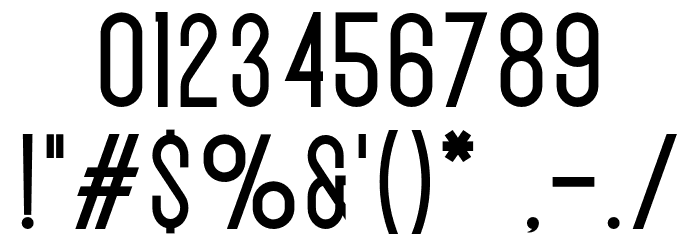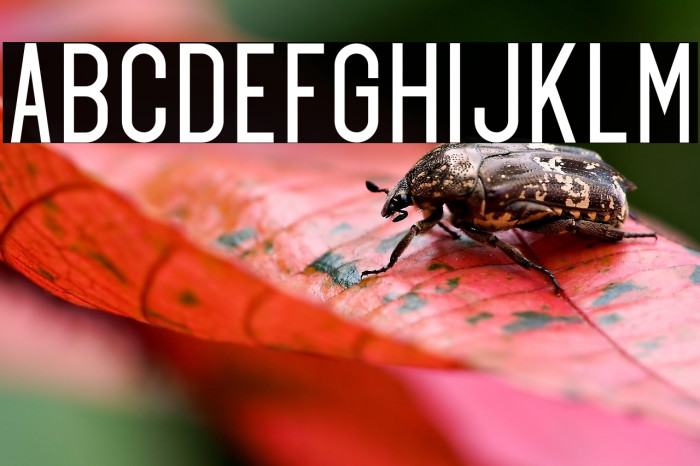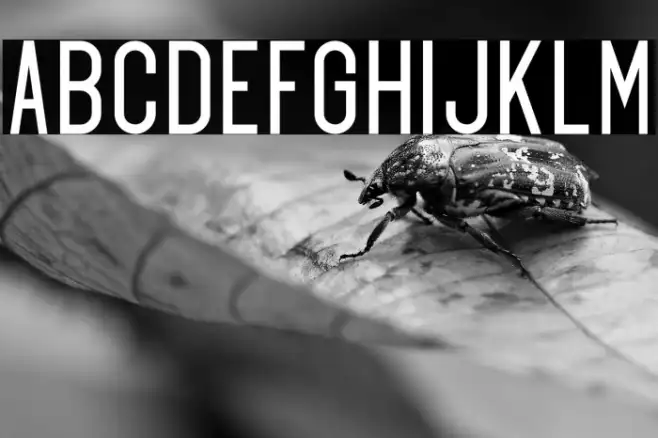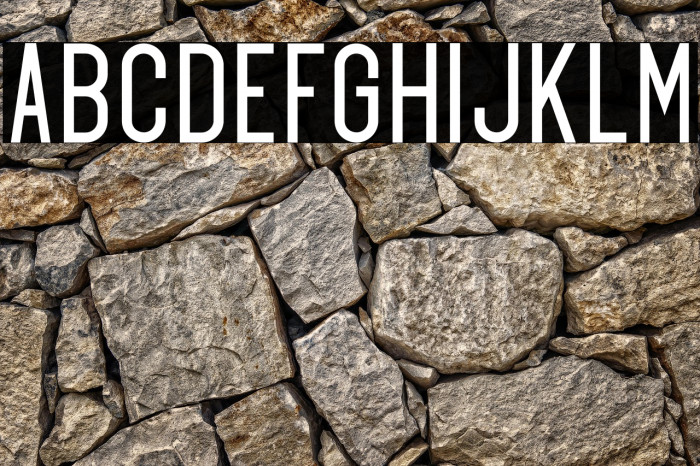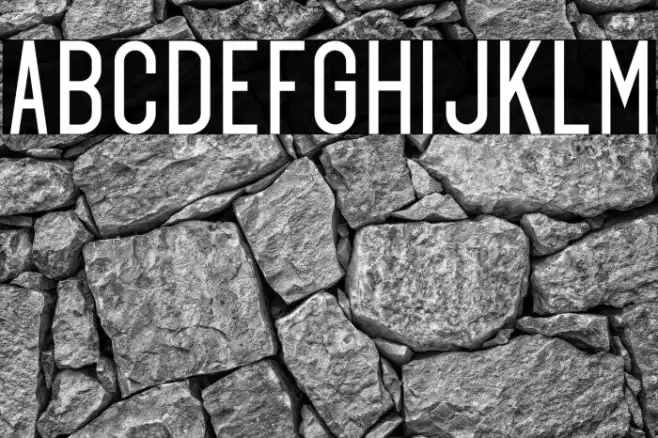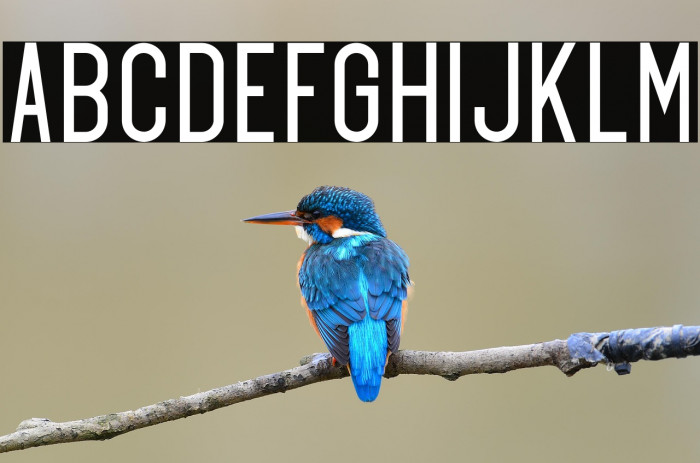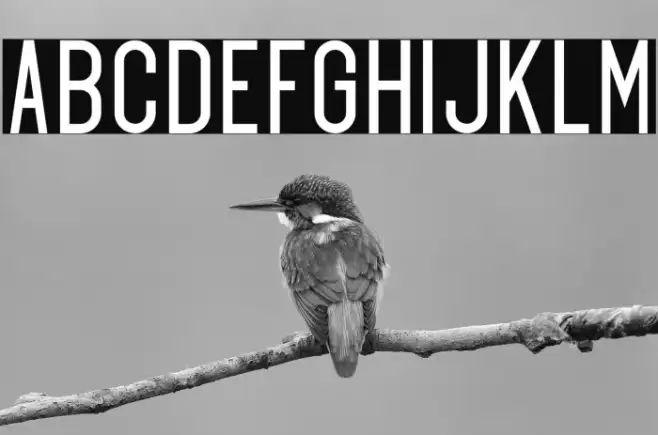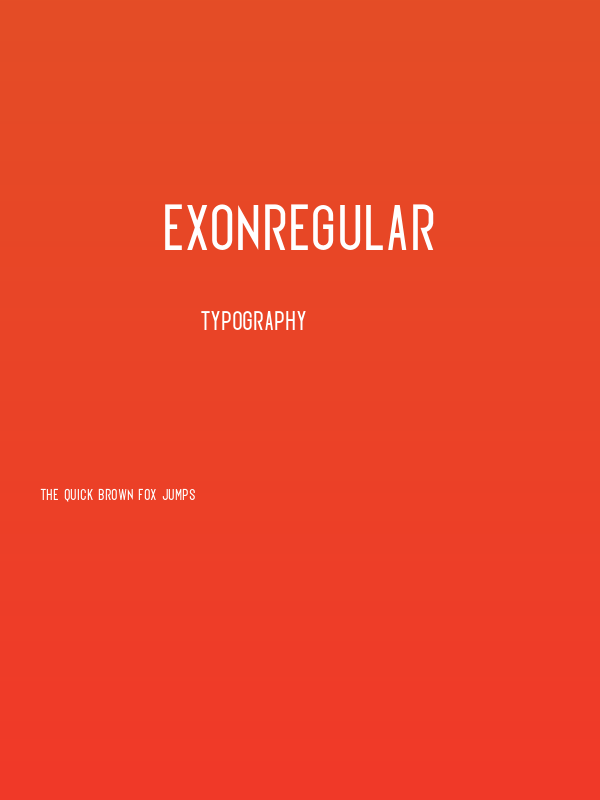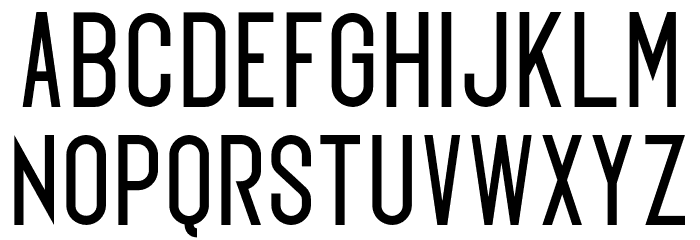
Exonregular Font
Exonregular Description
This font features a clean and modern sans-serif design with uniform stroke widths, giving it a sleek and contemporary appearance. The characters are tall and narrow, contributing to a condensed look that maximizes space efficiency. The uppercase letters are bold and commanding, while the lowercase letters maintain a consistent style that complements the overall aesthetic. The numerals are clear and legible, making them suitable for various applications. Special characters are included, enhancing the font's versatility for different design needs. Its simplicity and clarity make it ideal for both digital and print media.
| Proposed Projects | Ideal for branding, advertising, posters, and web design projects requiring a modern and clean aesthetic. |